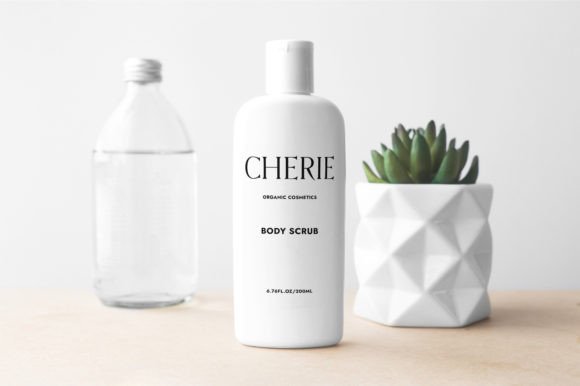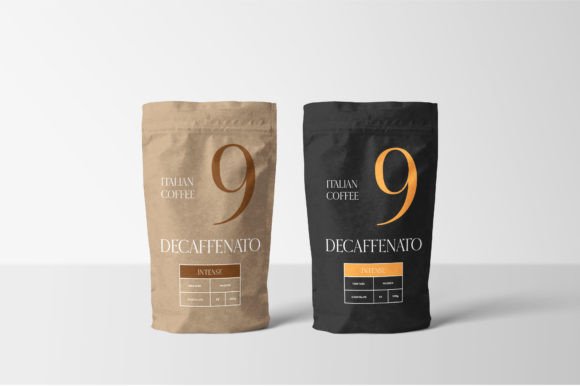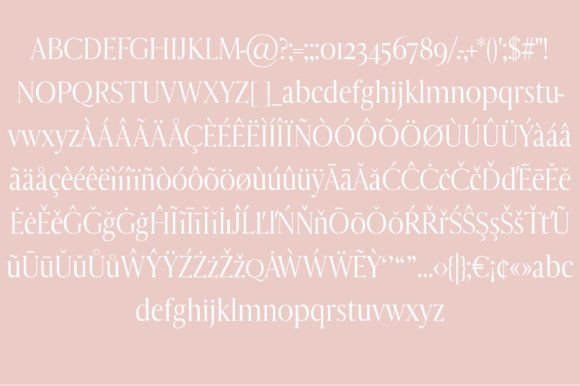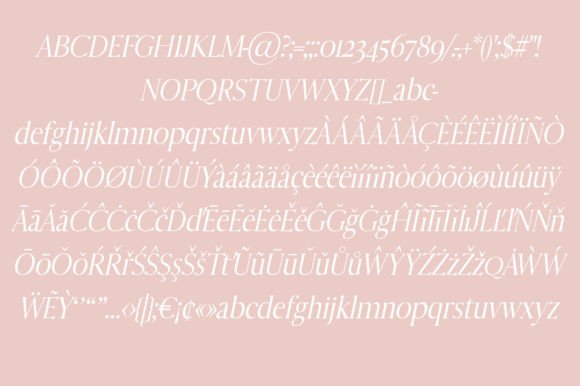
The Cherie Font: A Romantic and Elegant Serif for Your Creative Projects
I’ll never forget the time I was working on a packaging design project for a luxury perfume brand. I had spent hours brainstorming ideas, sketching out concepts, and experimenting with different color palettes. But as I sat staring at my computer screen, I knew something was missing – the perfect font. That’s when I stumbled upon the Cherie font, and it instantly elevated my design to a whole new level.
As the name suggests, Cherie is a romantic, elegant, and delicate serif typeface that exudes sophistication and refinement. Its minimalist aspect and accurate glyphs construction make it a perfect choice for a variety of creative projects, from packaging design and fragrance design to titling, cosmetics design, and website banners.
An Honest Review of the Cherie Font
- ✨ Elegant and refined design that’s perfect for luxury brands
- 🎉 Beautifully crafted glyphs and attention to detail
- 💻 Works seamlessly across different platforms and devices
While the Cherie font is an excellent choice for many projects, there are a few things to keep in mind. ⚠️ Some users have reported issues with kerning, particularly when using the font at larger sizes. Additionally, the font may not be suitable for body text, as it’s designed more for titles and headings.
The Story Behind the Cherie Font
The Cherie font was designed with the intention of creating a beautiful and elegant serif typeface that would be perfect for luxury brands and high-end designs. The designer, who wishes to remain anonymous, drew inspiration from classic serif fonts and infused them with a modern twist. The result is a font that’s both timeless and trendy, perfect for designers who want to add a touch of sophistication to their work.
Q: What type of projects is the Cherie font best suited for?
A: The Cherie font is perfect for packaging design, fragrance design, titling, cosmetics design, website banners, and any other project that requires a touch of elegance and sophistication.
Q: Is the Cherie font easy to read?
A: Yes, the Cherie font is highly legible, even at small font sizes. However, it’s designed more for titles and headings, so it may not be suitable for body text.
Q: Can I use the Cherie font across different platforms?
A: Yes, the Cherie font works seamlessly across different platforms and devices, making it a great choice for designers who need to ensure consistency across multiple mediums.